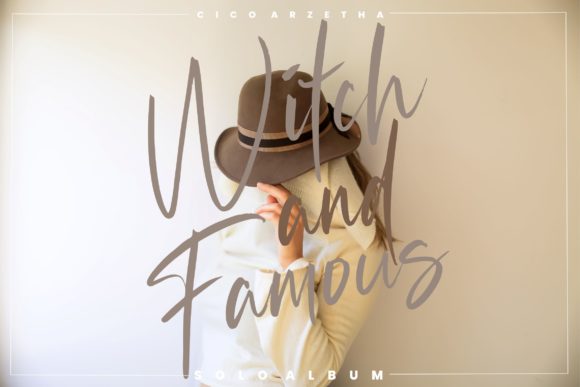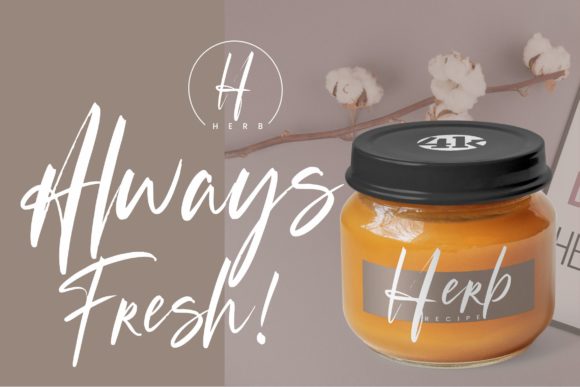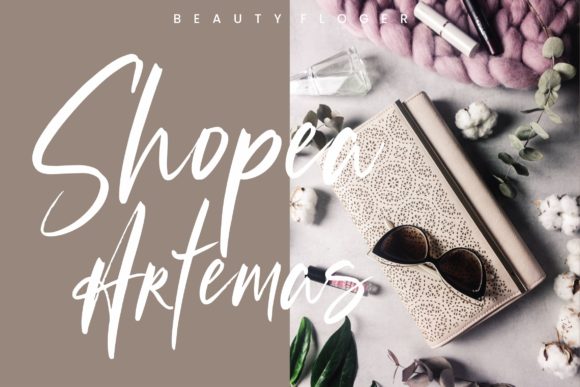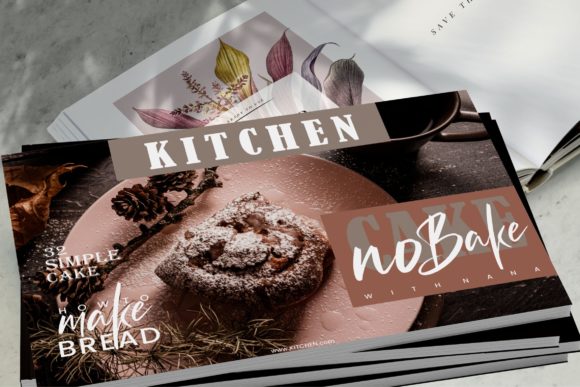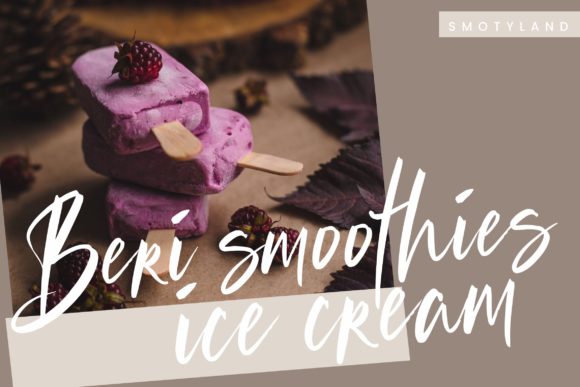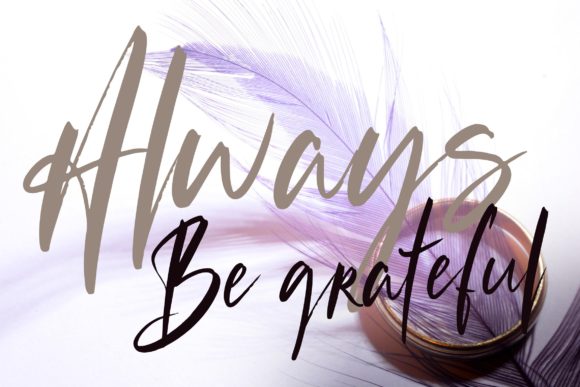
The Designer’s Delight: Exploring the Elegance of Arlitha Font
I’ll never forget the time I was working on a project for a trendy boutique hotel, and I was struggling to find the perfect font to capture their urban-chic vibe. The client was adamant that it had to be a script font, but something that wouldn’t look too over-the-top or cliché. That’s when I stumbled upon Arlitha Font, a brushed and sophisticated script font that instantly became my go-to. In this article, I’ll share my love for Arlitha, its features, and how to make the most of it in your designs.
An Honest Review of Arlitha Font
What I Love About Arlitha ✨
- ✅ Well-marked characters: Each letter is carefully crafted to ensure excellent legibility, making it perfect for body text or headings.
- ✅ Sophisticated and urban feel: Arlitha’s brushed texture gives it a unique, high-end look that’s perfect for trendy designs.
- ✅ Versatile: This font can be used for a wide range of projects, from branding and advertising to packaging and web design.
- ⚠️ Limited use in very small sizes: Due to its brushed texture, Arlitha may not be the best choice for very small font sizes, as it can become blurry or hard to read.
- ⚠️ Some characters may require manual kerning: While Arlitha’s kerning is generally excellent, some character combinations might require manual adjustment for optimal results.
The Story Behind Arlitha Font
Arlitha Font was designed with the modern designer in mind. Its creator aimed to craft a font that would be both elegant and urban, perfect for designs that require a touch of sophistication. While the exact story behind Arlitha might be shrouded in mystery, its design is undoubtedly inspired by the world of high-end fashion and luxury branding.
| Font Name | Arlitha Font |
| Author | lyanatha |
| What is Arlitha Font best suited for? | Arlitha Font is ideal for creating urban or trendy designs, such as branding, advertising, packaging, and web design. |
| Is Arlitha a difficult font to read? | No, Arlitha Font has well-marked characters, making it relatively easy to read, even at smaller font sizes. |